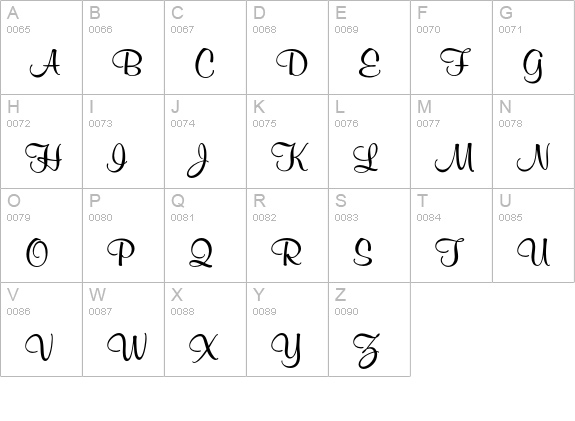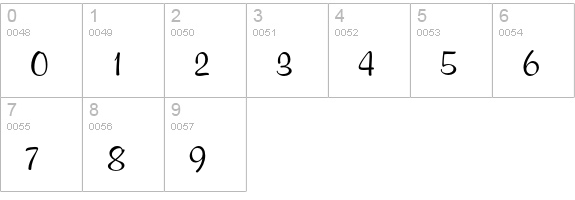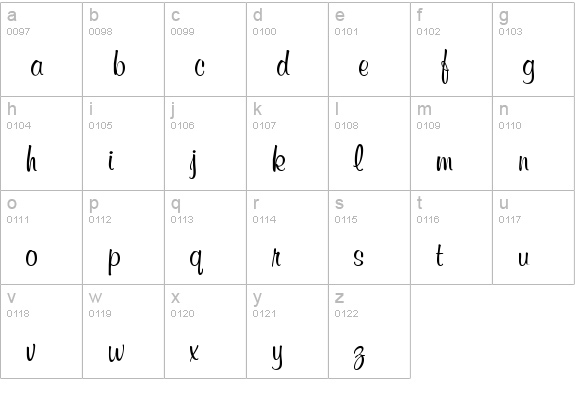
MurrayHillEF Font Details
MurrayHillEF is a stylish and sophisticated font that exudes elegance and class. Its sleek lines and classic design make it perfect for a wide range of projects, from wedding invitations to branding materials. With its timeless appeal, MurrayHillEF adds a touch of refinement to any design. Best of all, MurrayHillEF is completely free! You can download this beautiful font at FontsMarket.com and use it in your projects without any restrictions. Whether you're a designer looking to add a touch of sophistication to your work or a business owner wanting to elevate your branding, MurrayHillEF is the perfect choice. Download it today and see the difference it can make in your designs.